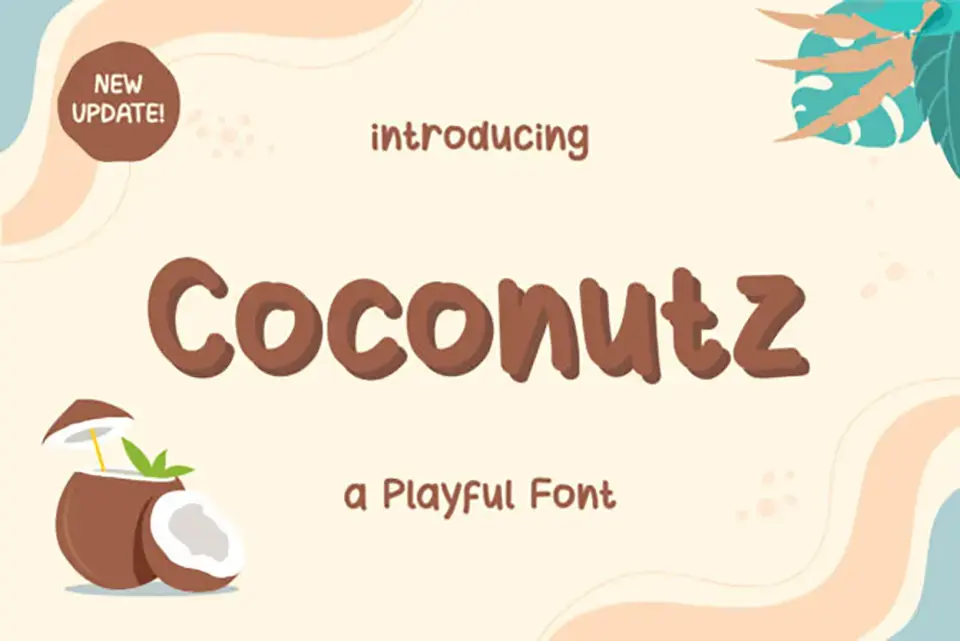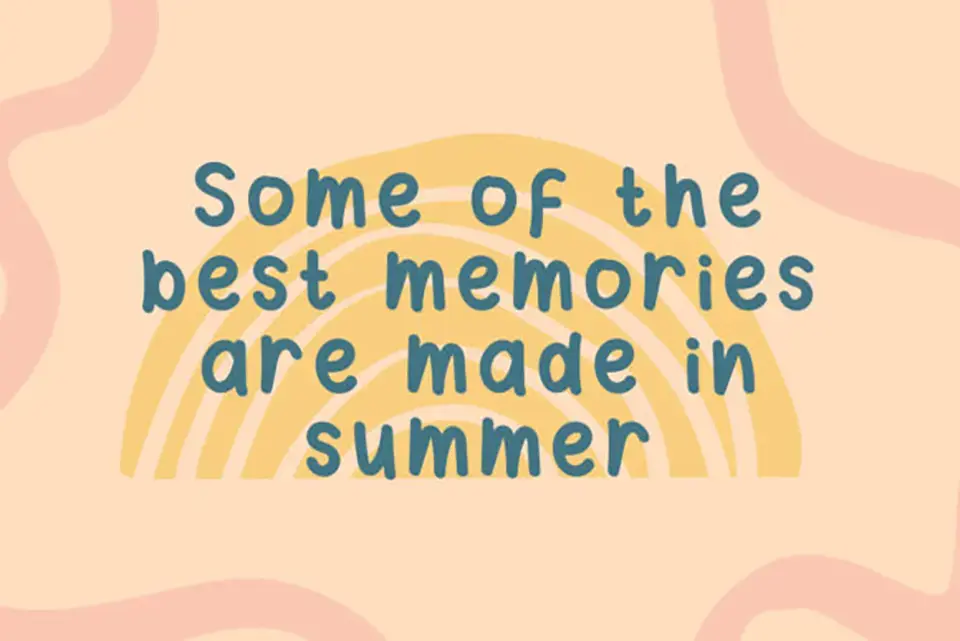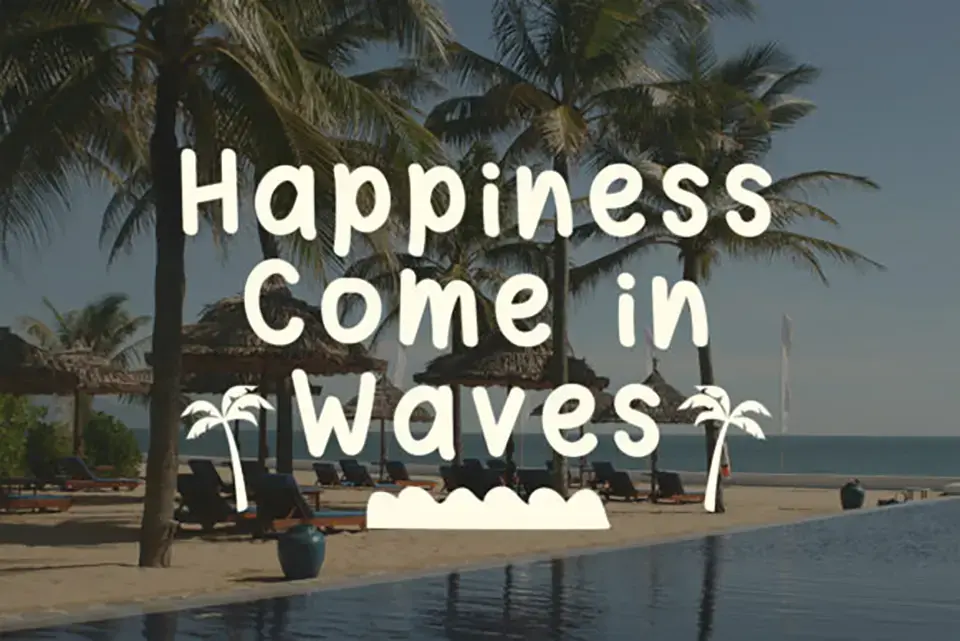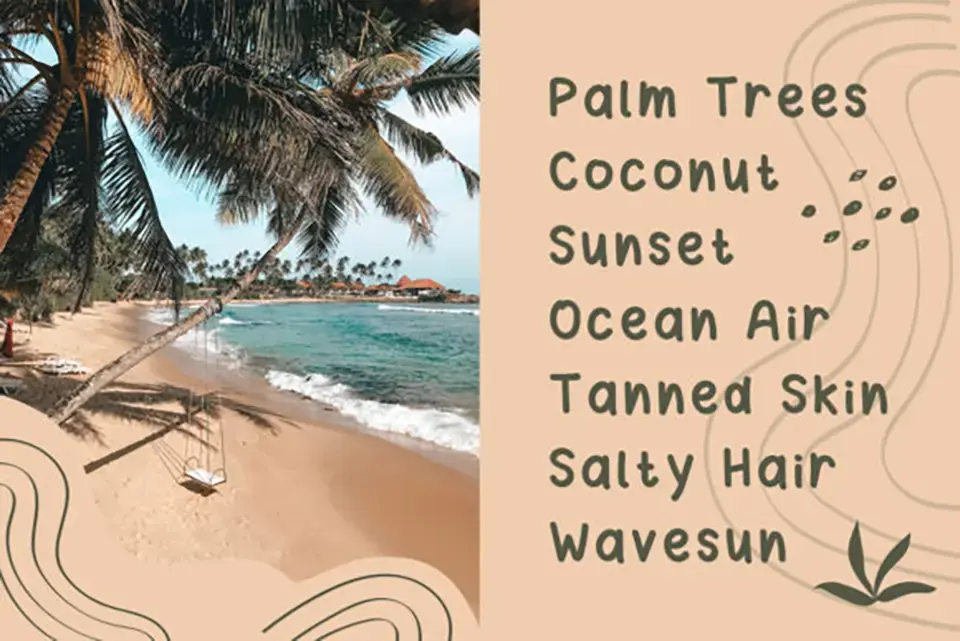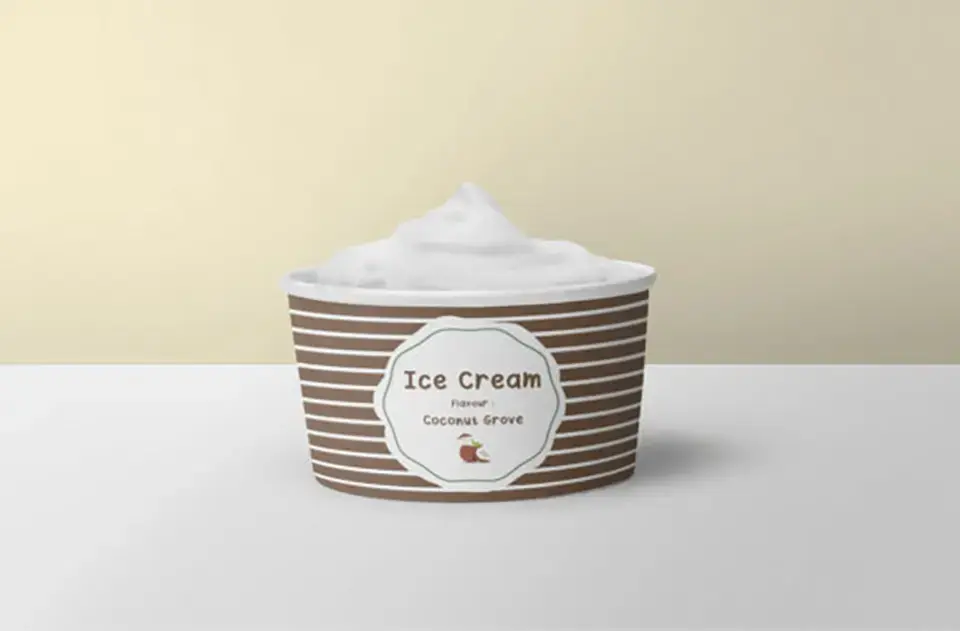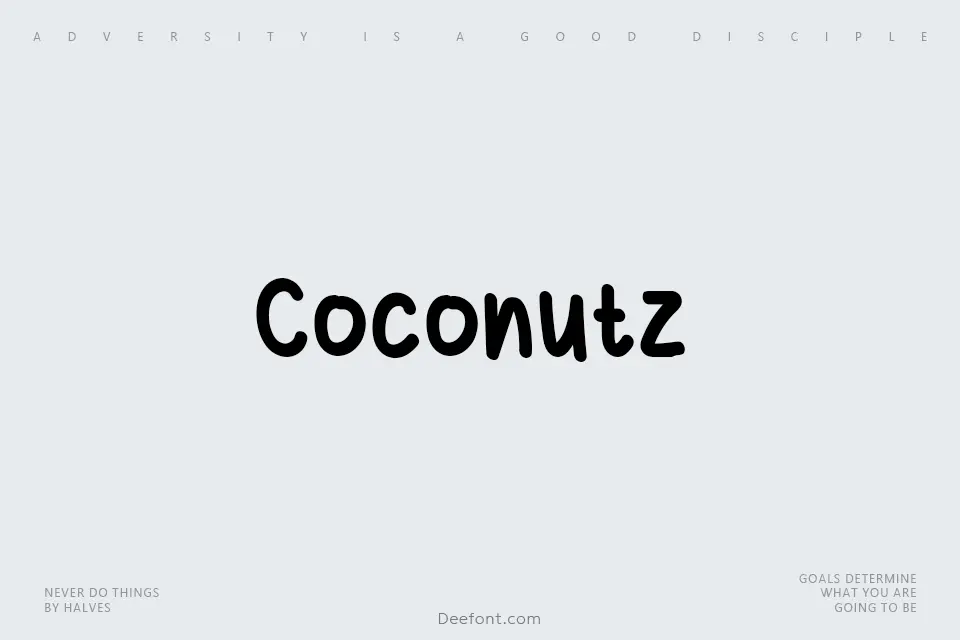
Coconutz Font
Coconutz is a vibrant playful display font that brings joy and personality to your creative projects. With its whimsical handwritten style, rounded letterforms, and cheerful character, this typeface excels at capturing attention for headings, greeting cards, product packaging, and eye-catching posters. The font's friendly aesthetic makes it ideal for holiday designs, children's projects, apparel branding, book covers, and album artwork that demands a touch of fun and memorability.